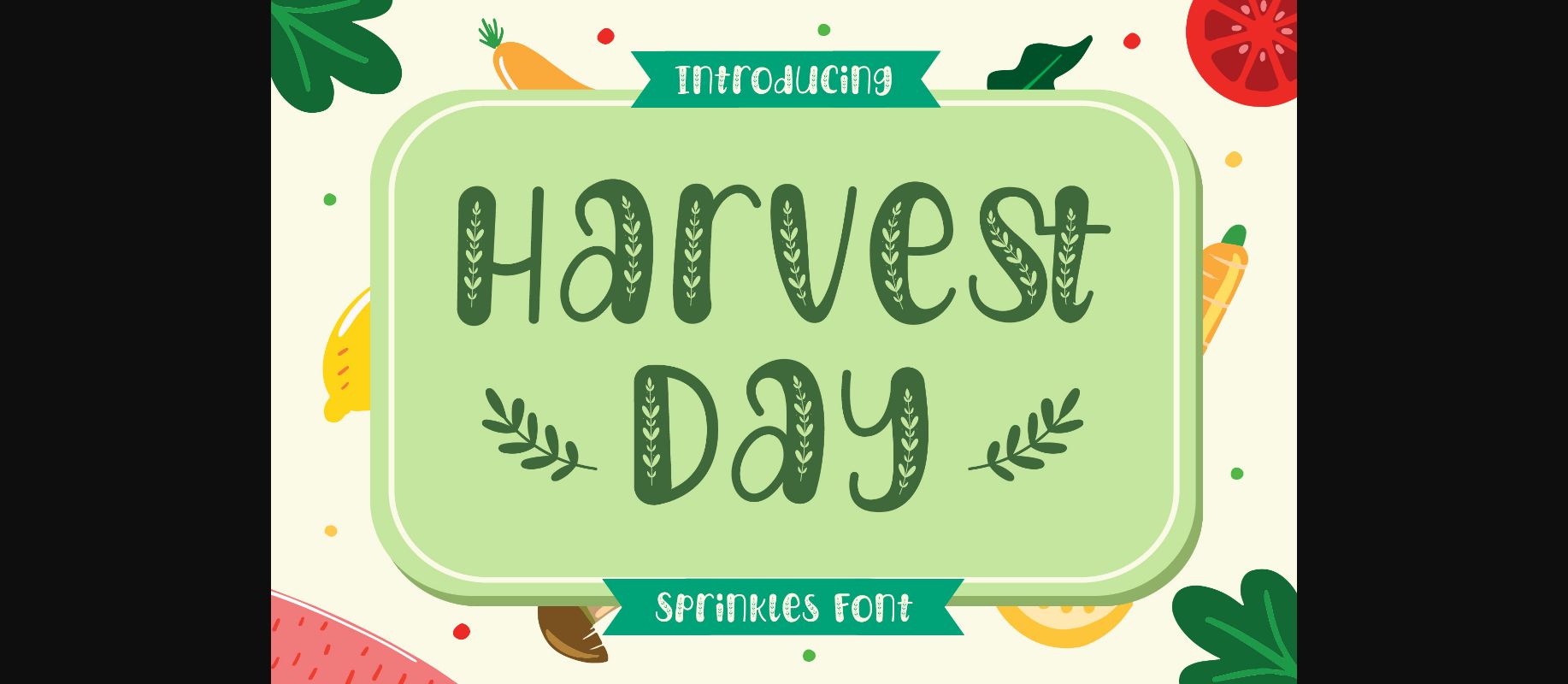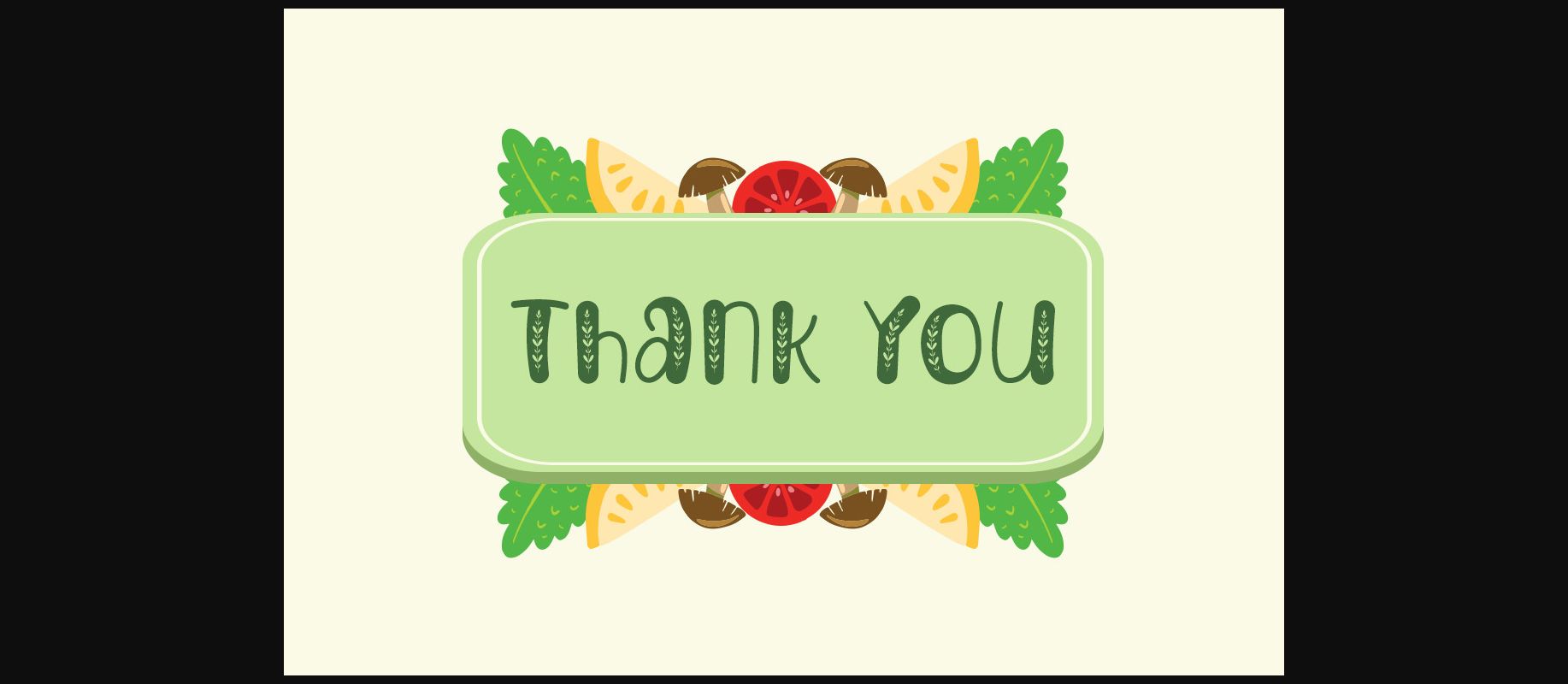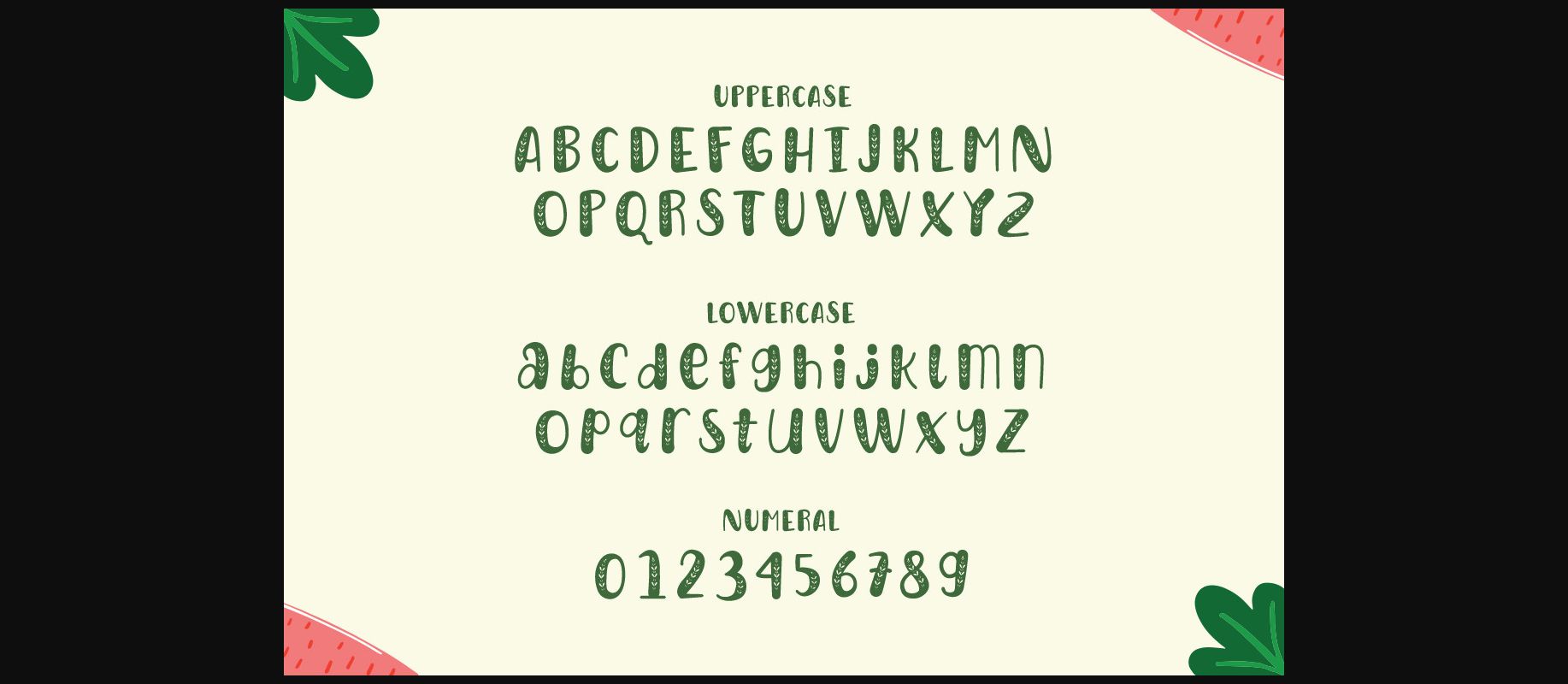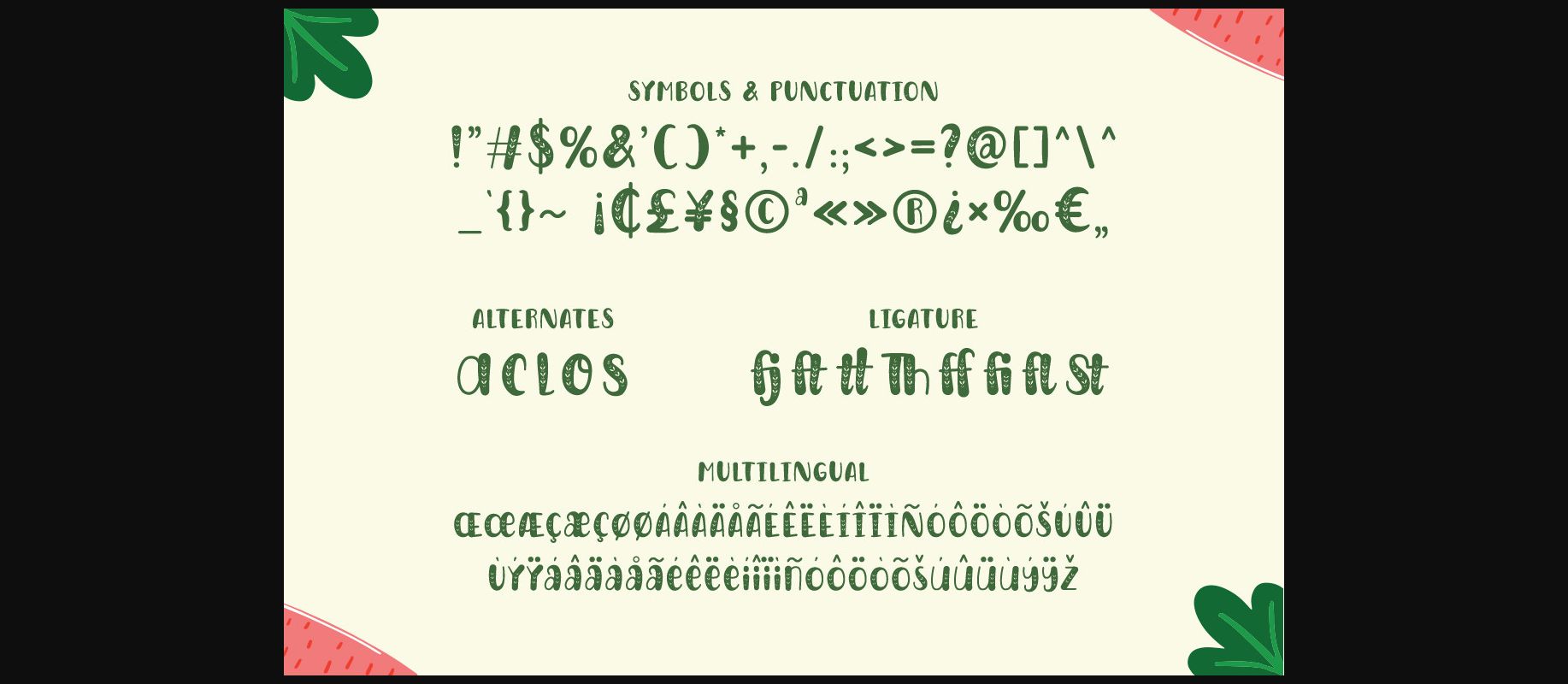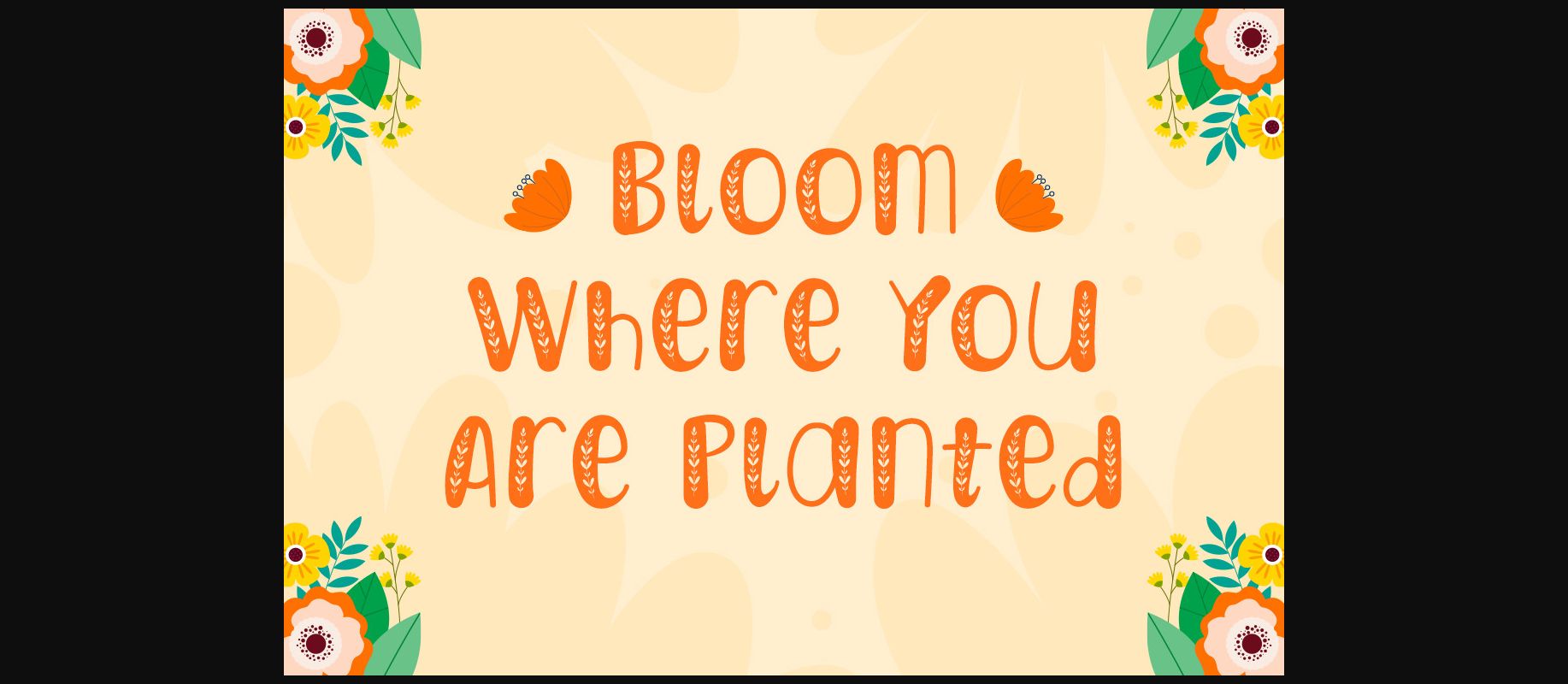
Harvest Day Font
About Harvest Day Font
Harvest Day is a trendy and cool decorative font. It will elevate a wide range of crafting ideas, from cards, to branding, labels and much more.